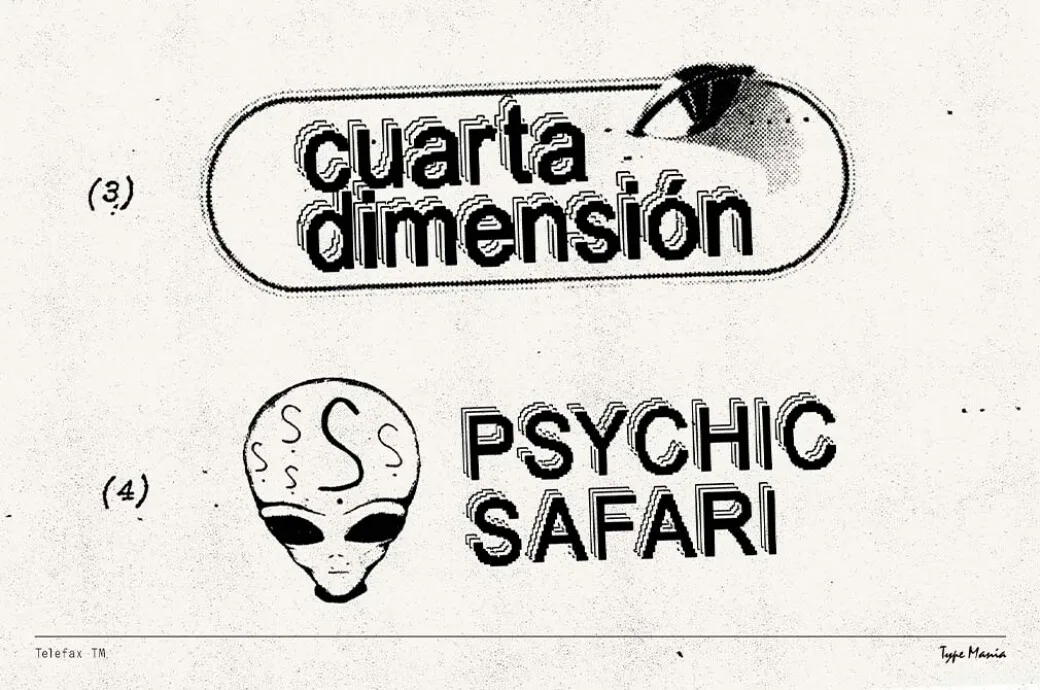
Telefax TM Pixel Font – Free Retro Pixelated Typeface
Step into the digital past with Telefax TM Pixel Font, a typeface designed to channel the nostalgic energy of early screen displays, dot matrix printers, and vintage arcade aesthetics. With a bold pixelated texture and a comprehensive glyph set, this font blends timeless pixel charm with professional-grade flexibility—making it a perfect addition to any designer’s toolkit.
Crafted with meticulous grid-based geometry, Telefax TM includes over 200 characters, featuring uppercase and lowercase letters, punctuation, symbols, and full multilingual support. Whether you’re working on an 8-bit gaming interface or looking to bring a tech-inspired style to your UI design, this font delivers precise clarity and character—even at small sizes.
🎮 Where Can You Use Telefax™?
This pixel font is tailor-made for both modern and nostalgic uses. Designers love it for:
• Retro video game interfaces and 2D game design
• YouTube thumbnails and Twitch stream overlays
• Tech product packaging and stickers
• App UIs with pixel-perfect legibility
• Posters, zines, and album covers with glitch or cyber aesthetics
• Digital art and NFTs needing that retro-computing style
Its pixel grid styling ensures your message stands out even in low-resolution displays, perfect for creators who want consistency across screen sizes and devices.
✨ Why Choose Telefax TM?
Unlike generic pixel fonts, Telefax™ doesn’t just rely on basic square dots. It’s built with a modern digital sensibility, offering balanced spacing, subtle rhythm, and aesthetic consistency across characters. The multilingual support makes it especially powerful for global digital products, allowing you to stay true to pixel-art roots while communicating with a broader audience.
Whether you’re building a retro game, launching a digital fashion brand, or designing tech-themed posters, Telefax TM Pixel Font gives your typography an instant throwback appeal while remaining versatile and highly readable.